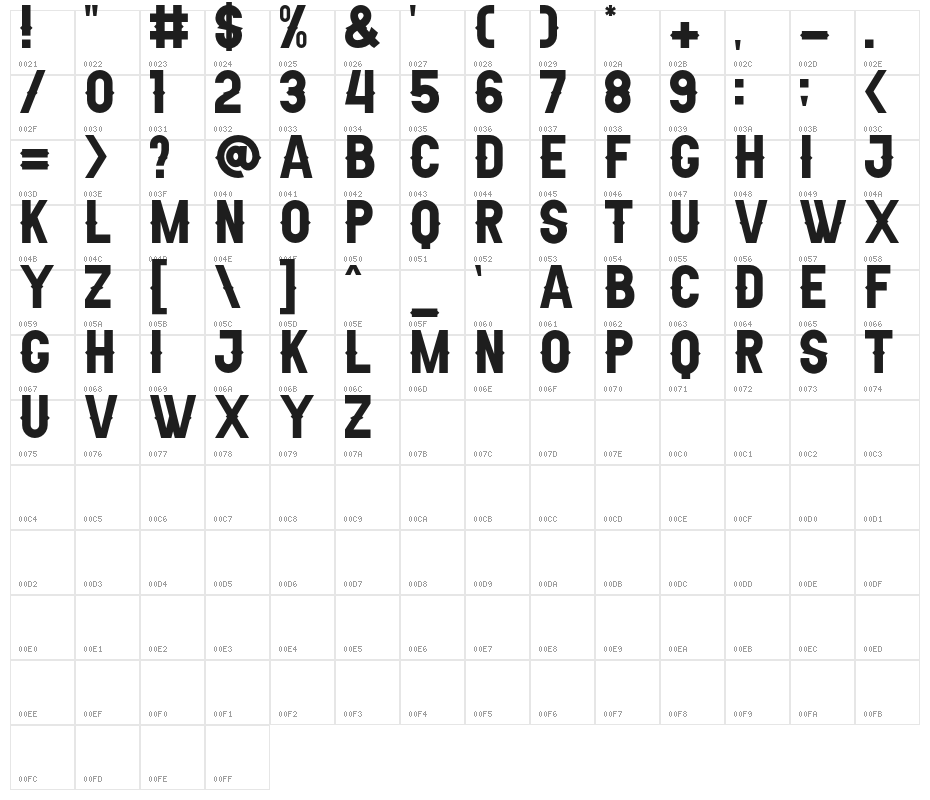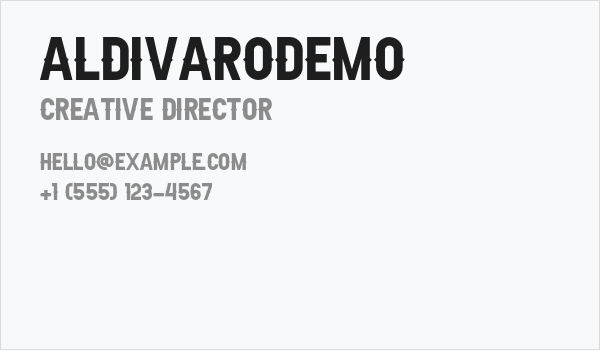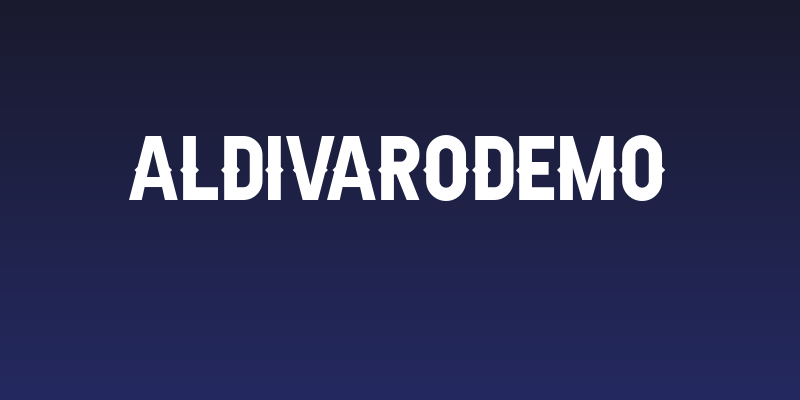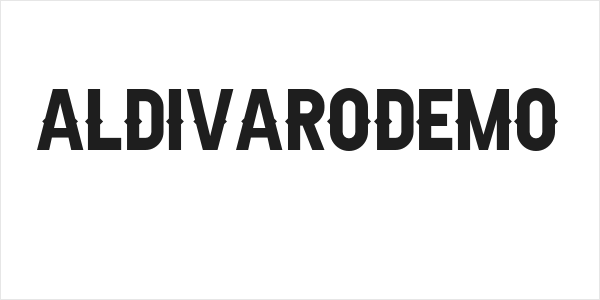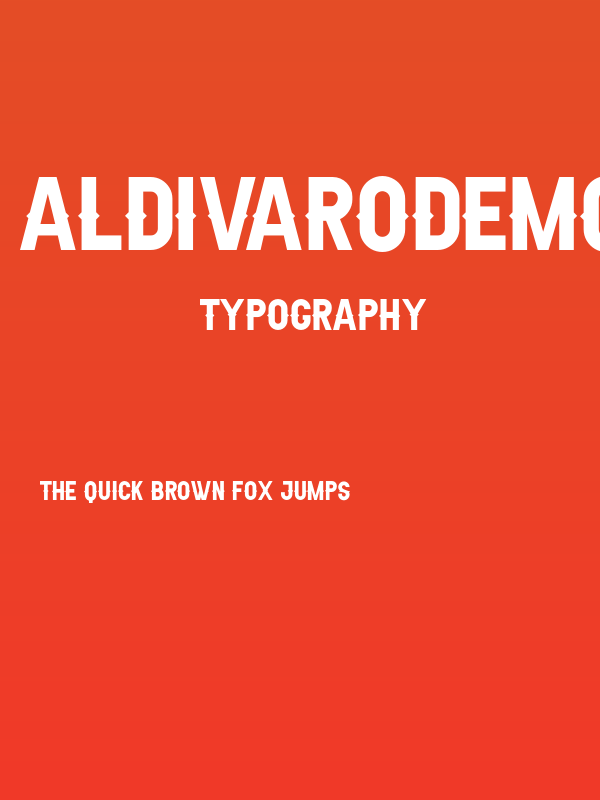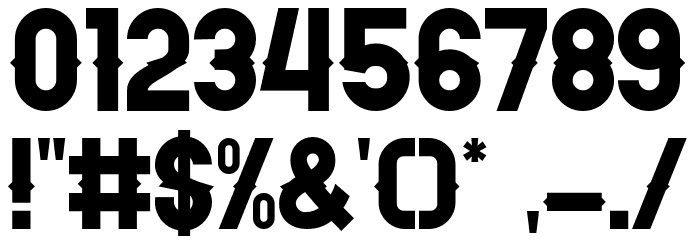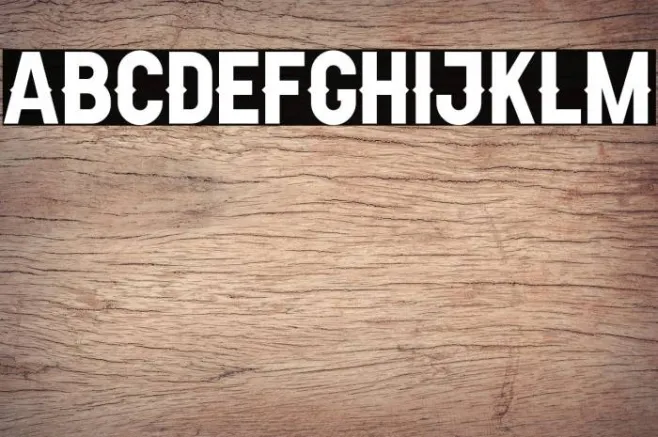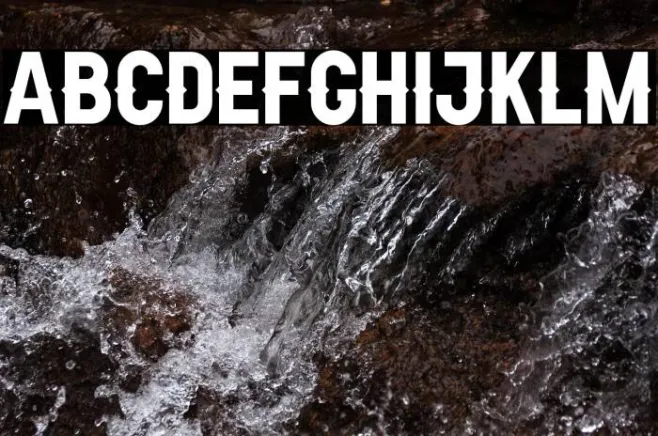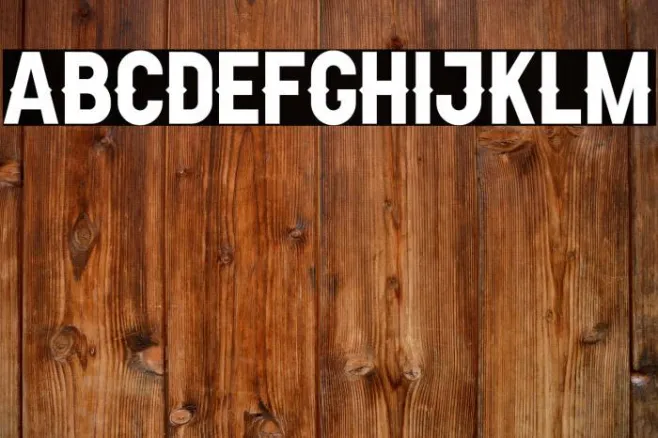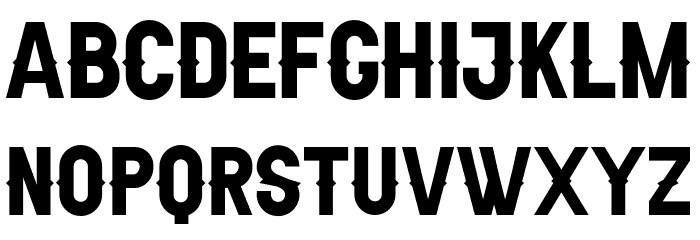
AldivaroDemo Font
AldivaroDemo Description
This font features a bold and striking design with a unique geometric style. Each character is crafted with thick, uniform strokes that create a strong visual impact. The letters are characterized by their block-like appearance, with sharp angles and a consistent width throughout. The font's design incorporates a modern and industrial aesthetic, making it suitable for projects that require a bold and assertive look. The characters are evenly spaced, providing a balanced and cohesive appearance. This font is ideal for creating eye-catching headlines, posters, and branding materials that demand attention.
| Proposed Projects | Ideal for headlines, posters, branding, and any project requiring a strong visual impact. |